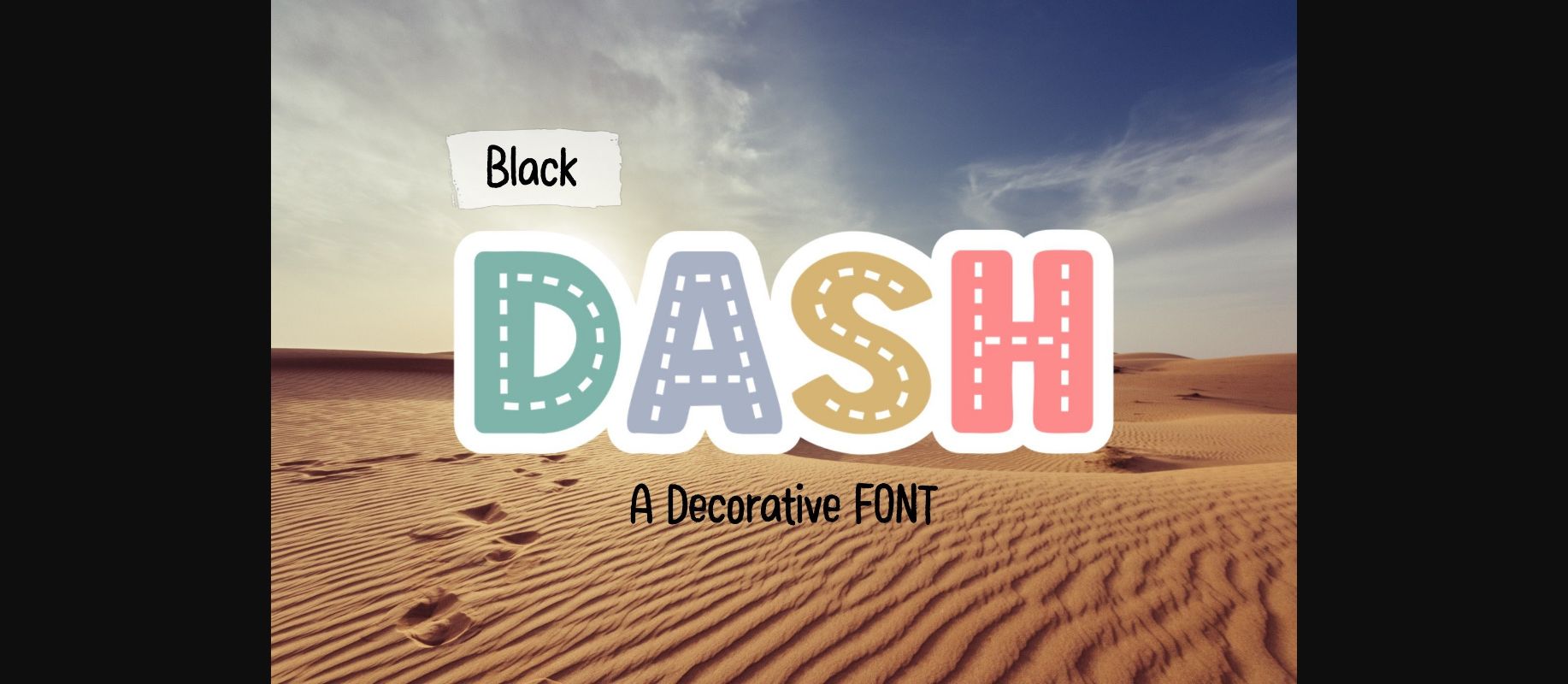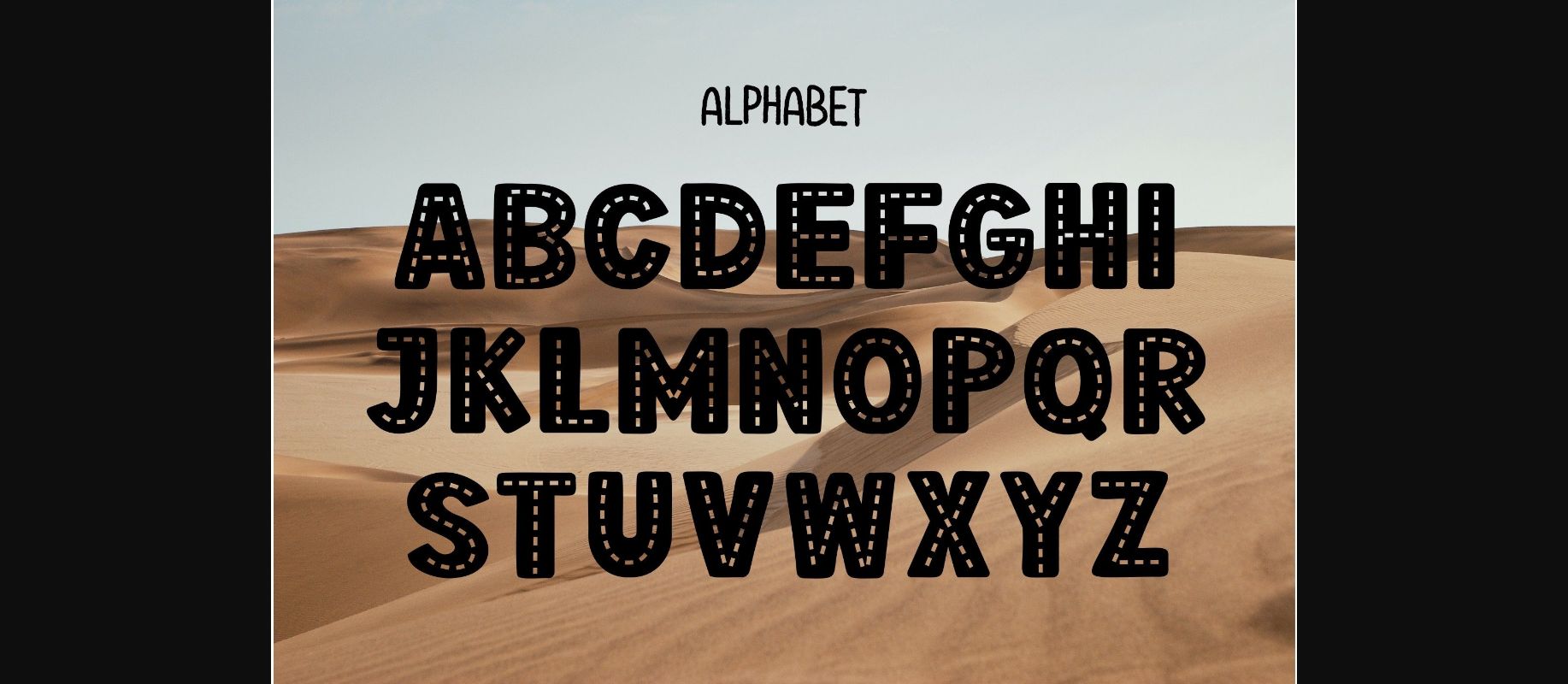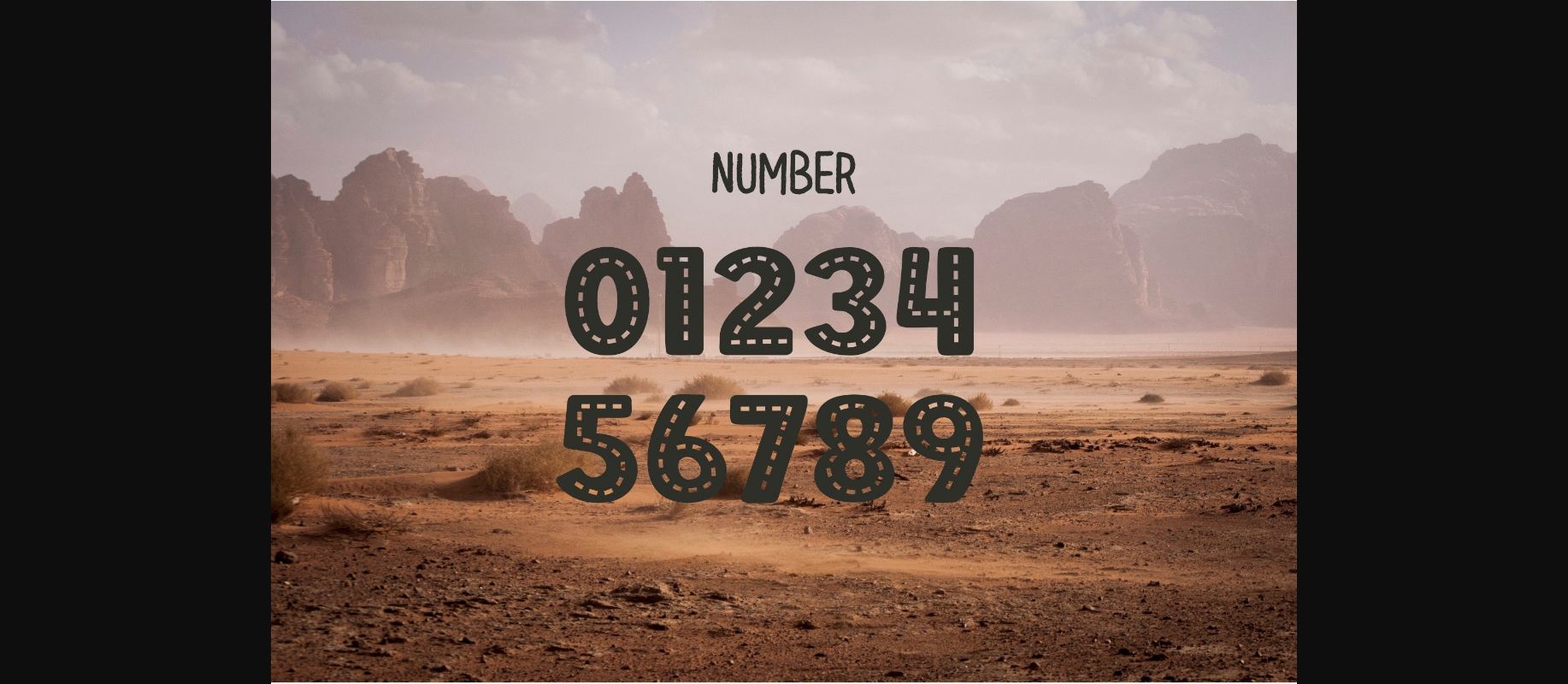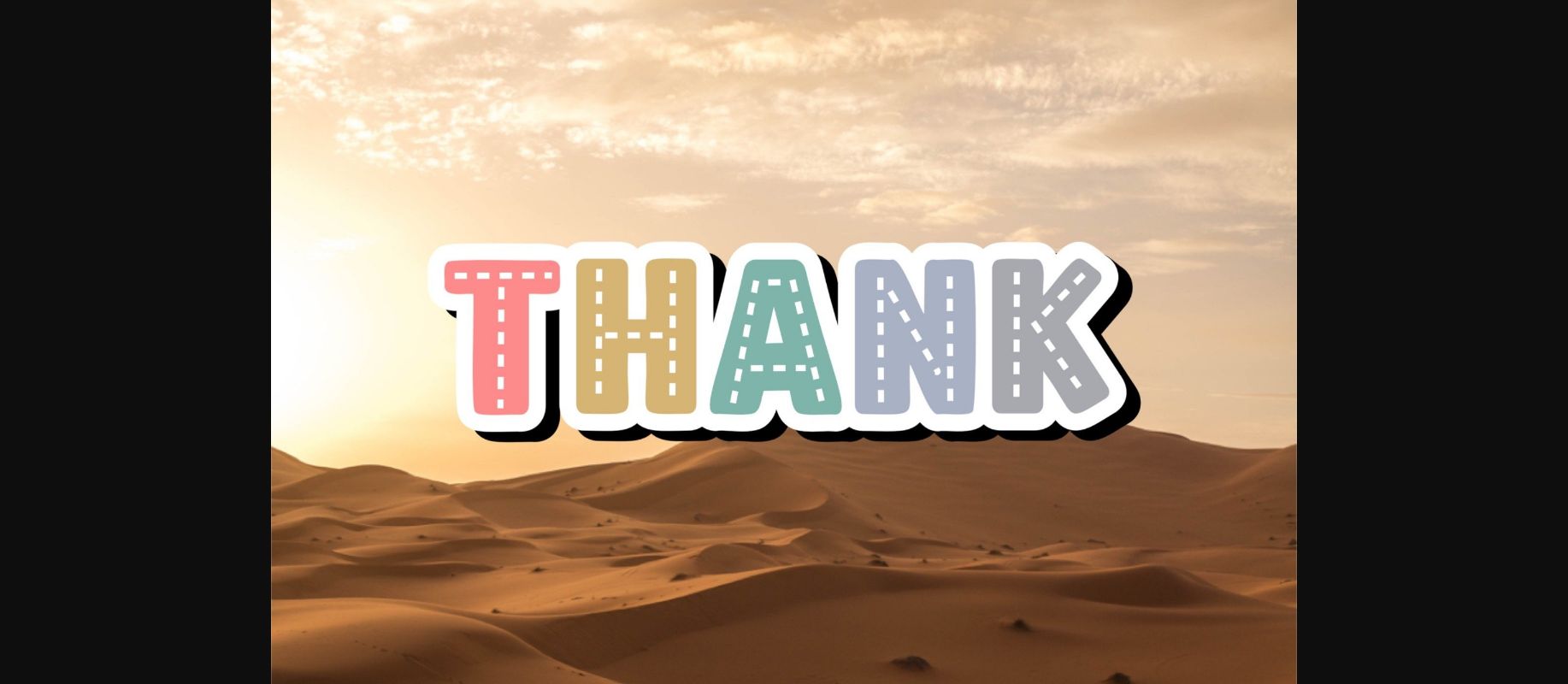
Black Dash Font
About Black Dash Font
Black Dash is a cute and charming decorative font. Whimsical and a bit quirky, this font will brighten up each of your designs. Add it confidently to your projects, and you will love the results.